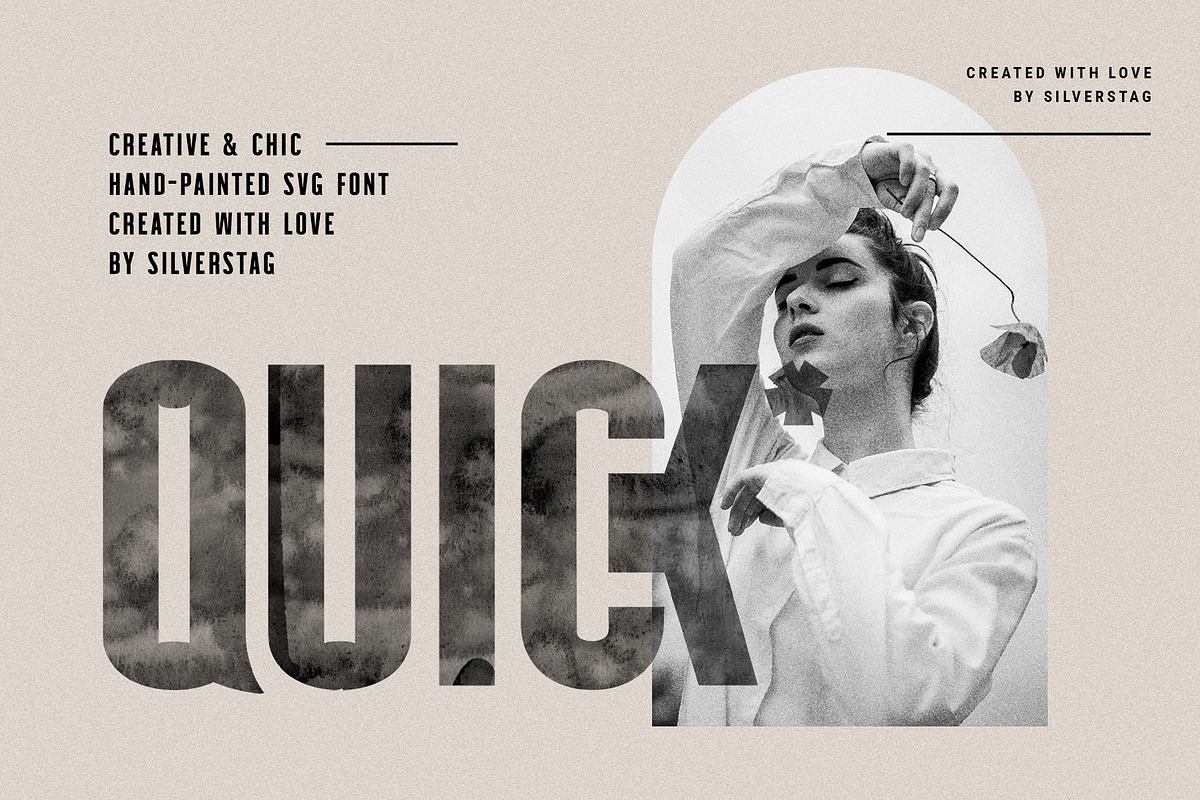
QUICK - Modern Hand-Painted SVG Font Free Download
QUICK – Modern Hand-Painted SVG Font Free Download is a bold and expressive typeface that captures the raw energy of hand-painted brush strokes in stunning detail. Ideal for posters, album covers, branding, and edgy social media content, this SVG font delivers texture, personality, and modern attitude.
Because it’s an SVG font, QUICK – Modern Hand-Painted SVG Font Free Download preserves all the authentic details of real brush lettering—perfect for designs that demand a handmade, artistic feel. Whether you're creating impactful headlines or bold visual statements, this font brings emotion and movement to every letter. Try it today in your mockups and experience its gritty, modern flair before committing to a commercial license.